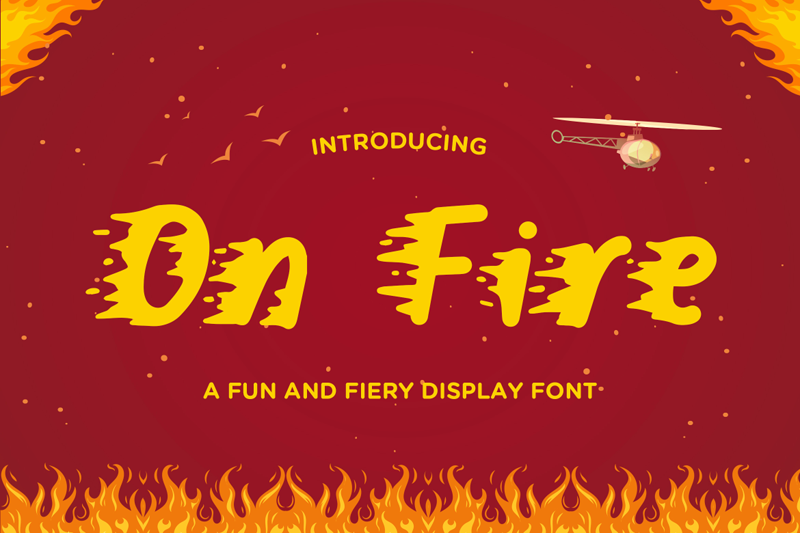
Font name: | On Fire |
Categories | Fancy, Fire, Ice |
Author: | Type Factory |
Note by Type Factory | |
On Fire is a fiery and fun display font that has spicy feel.� On Fire has a fiery effect, it�s the perfect font for giving any design a fiery and dangerous feel, spices brand, or maybe spicy delicious food! Full Version Download Here : https://typefactory.co/product/on-fire-a-fun-and-fiery-display-font/ https://www.creativefabrica.com/product/on-fire-5/ |